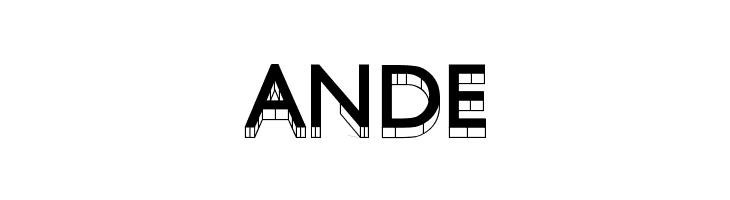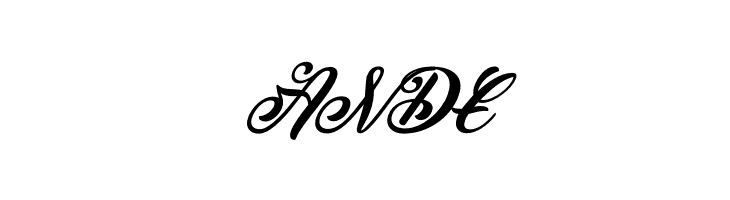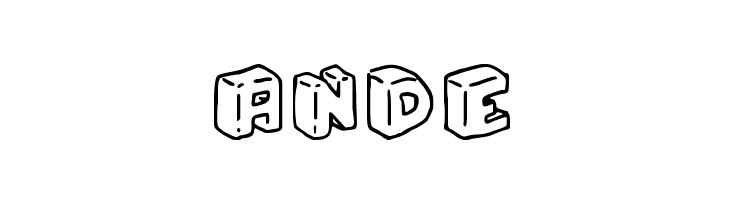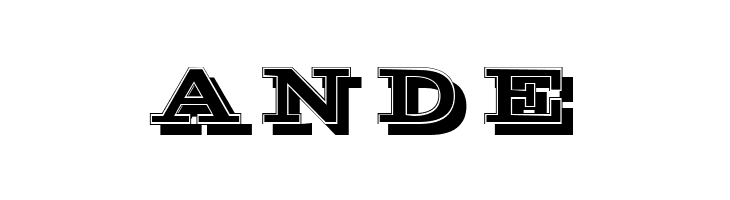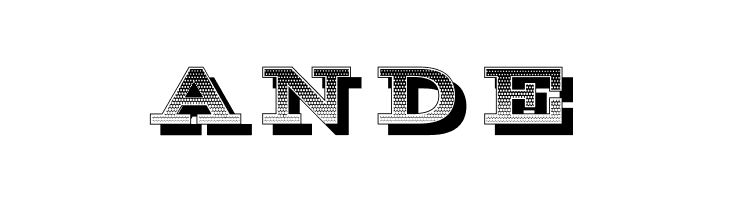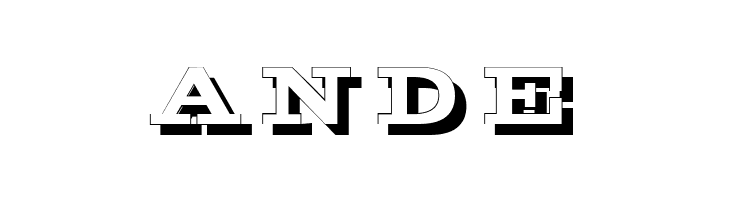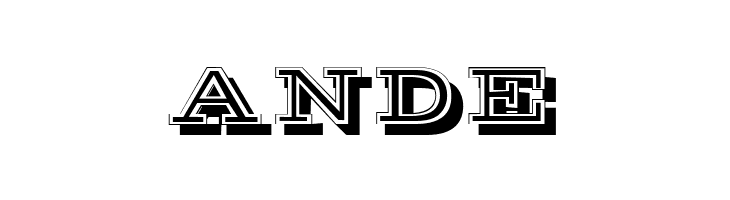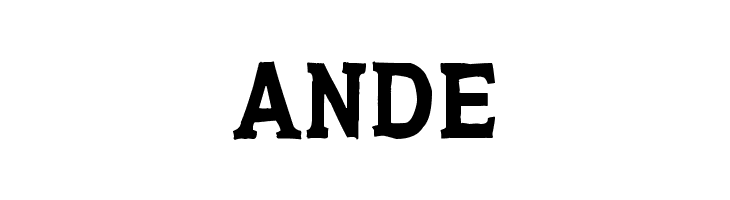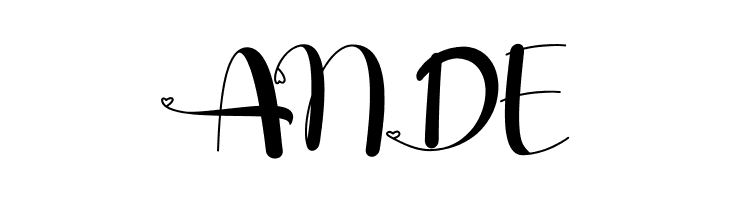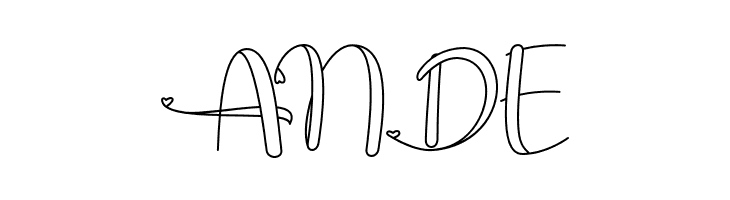
( Fonts by OSP - Personal-use only. For commercial use please contact owner. ) A bold, three-dimensional font with a modern and striking appearance. Download 114 Downloads@WebFont
( Fonts by Kong Font - https://fontkong.com/ - Personal-use only. For commercial use please contact owner. ) An elegant, italicized script font with bold strokes and high contrast. Download 98 Downloads@WebFont
( Fonts by Kong Font - https://fontkong.com/ - Personal-use only. For commercial use please contact owner. ) A bold, elegant script font with flowing, decorative characters. Download 148 Downloads@WebFont
( Personal-use only. For commercial use please contact owner. ) A clean, modern monospaced typeface ideal for coding and technical documentation. Download 295 Downloads@WebFont
( Fonts by FatmaStudio ) A bold, playful handwritten font with smooth, rounded letters. Download 119 Downloads@WebFont
( Fonts by Brixdee - jack-oatley.com - Personal-use only. For commercial use please contact owner. ) A playful, bold 3D font with a hand-drawn, cartoonish style. Download 94 Downloads@WebFont
( Fonts by Vladimir Nikolic - www.creativefabrica.com/designer/vladimirnikolic/ - Personal-use only. For commercial use please contact owner. ) A bold, dramatic font with a three-dimensional effect and strong geometric shapes. Download 128 Downloads@WebFont
( Fonts by Vladimir Nikolic - www.creativefabrica.com/designer/vladimirnikolic/ - Personal-use only. For commercial use please contact owner. ) A bold, decorative serif font with a filled, shadowed design. Download 40 Downloads@WebFont
( Fonts by Vladimir Nikolic - www.creativefabrica.com/designer/vladimirnikolic/ - Personal-use only. For commercial use please contact owner. ) A bold, decorative slab serif font with a gradient effect for a 3D look. Download 27 Downloads@WebFont
( Fonts by Vladimir Nikolic - www.creativefabrica.com/designer/vladimirnikolic/ - Personal-use only. For commercial use please contact owner. ) A bold, three-dimensional font with a vintage shadow effect. Download 67 Downloads@WebFont
( Fonts by Vladimir Nikolic - www.creativefabrica.com/designer/vladimirnikolic/ - Personal-use only. For commercial use please contact owner. ) A bold, collegiate-style font with double-line outlines and strong geometric shapes. Download 44 Downloads@WebFont
( Fonts by Maximum Limit ) A bold, rugged font with a handcrafted, distressed appearance. Download 560 Downloads@WebFont
( Fonts by Andika Fez - Personal-use only. For commercial use please contact owner. ) A whimsical and romantic script font with bold strokes and heart motifs. Download 30 Downloads@WebFont
( Fonts by Andika Fez - Personal-use only. For commercial use please contact owner. ) A playful script font with heart motifs and flowing strokes. Download 33 Downloads@WebFont
( Fonts by Cumberland Fontworks - S. John Ross - Personal-use only. For commercial use please contact owner. ) A vintage, hand-drawn font with a textured, rustic appearance. Download 26 Downloads@WebFont
( Fonts by Cumberland Fontworks - S. John Ross - Personal-use only. For commercial use please contact owner. ) A rugged, distressed font with a vintage, hand-drawn style. Download 33 Downloads@WebFont
( Fonts by Deniz86 - Rahmat Hidayat - Personal-use only. For commercial use please contact owner. ) An elegant and sophisticated cursive script font with flowing, interconnected letters. Download 47 Downloads@WebFont
( Fonts by Dwi Krisdiantoro - Personal-use only. For commercial use please contact owner. ) A bold, handwritten font with dynamic strokes and a playful, informal style. Download 58 Downloads@WebFont
( Fonts by Hanoded - David Kerkhoff - Personal-use only. For commercial use please contact owner. ) A bold, brush-style font with a dynamic, hand-painted appearance. Download 61 Downloads@WebFont
( Fonts by Letterpedia - Axel Alessandro Satriawan - Personal-use only. For commercial use please contact owner. ) A playful, handwritten script font with a whimsical and casual style. Download 35 Downloads@WebFont
( Fonts by Nur Solikh - Personal-use only. For commercial use please contact owner. ) A bold, expressive script font with interconnected characters and dynamic flow. Download 38 Downloads@WebFont
( Fonts by Shanaya Studio - Personal-use only. For commercial use please contact owner. ) A modern, italic font with clean lines and consistent stroke width. Download 59 Downloads@WebFont
( Fonts by Shanaya Studio - Personal-use only. For commercial use please contact owner. ) A modern, rounded sans-serif font with a friendly and approachable style. Download 186 Downloads@WebFont
( Fonts by Taufiqurrohman Nadri - Personal-use only. For commercial use please contact owner. ) A bold, blackletter font with sharp, angular lines and intricate detailing. Download 61 Downloads@WebFont
( Fonts by Vladimir Nikolic - Personal-use only. For commercial use please contact owner. ) A bold, decorative font with a three-dimensional effect and geometric structure. Download 34 Downloads@WebFont
( Fonts by ilhamtaro ) A bold, dynamic script font with thick strokes and a slight slant. Download 167 Downloads@WebFont
( Fonts by Asep Rendi ) A bold, distressed font with a vintage, stamp-like texture. Download 50 Downloads@WebFont
( Fonts by Blackletter Studio ) A bold, gothic blackletter font with intricate, angular strokes and ornate details. Download 40 Downloads@WebFont
( Fonts by Blackletter Studio ) A bold, gothic blackletter font with intricate, angular letterforms. Download 31 Downloads@WebFont